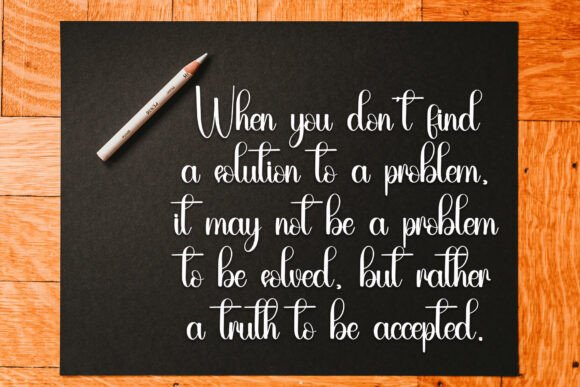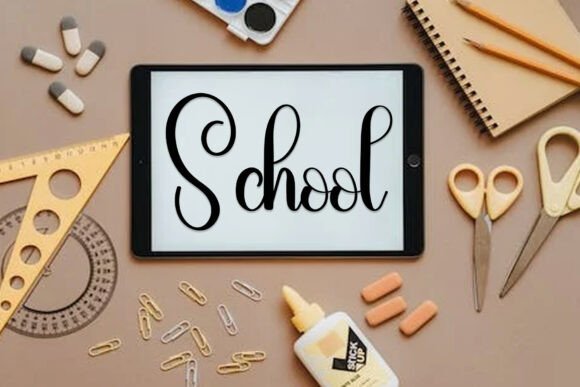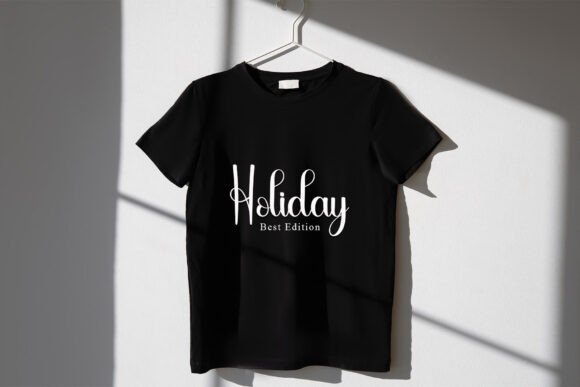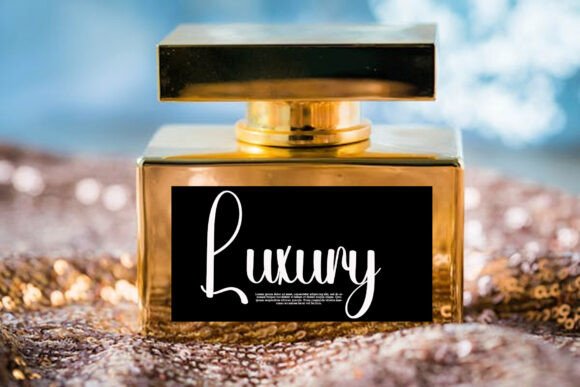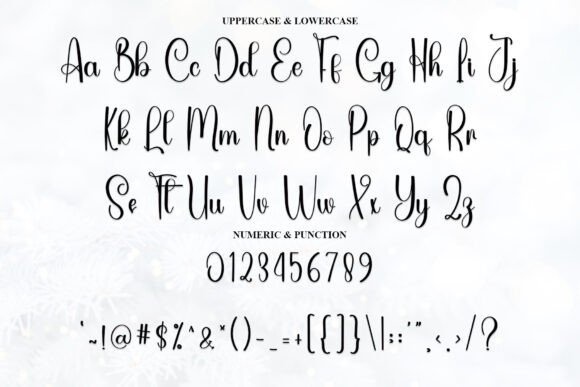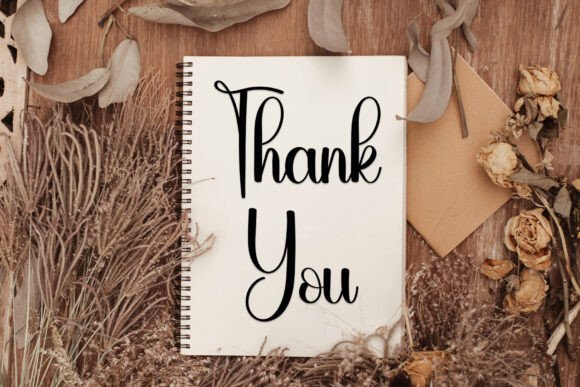
Introducing Christmas Vacation Font: Elevate Your Designs with Timeless Elegance
Are you looking for a font that exudes style, beauty, and elegance, perfect for adding a touch of sophistication to your projects? Look no further than the Christmas Vacation Font. Inspired by timeless classic calligraphy, this font brings a contemporary atmosphere and impeccable form to your designs. Whether you’re a designer, crafter, or DIY enthusiast, this font is sure to become your new go-to for creating stunning visual content.
What Makes Christmas Vacation Font So Special?
Christmas Vacation Font is a stylish and beautiful font that boasts a range of features that set it apart from other fonts. Here are just a few reasons why this font is a must-have for designers and crafters:
- Contemporary yet Classic: This font strikes the perfect balance between modern elegance and timeless sophistication. Its classic calligraphy inspiration ensures that your designs will never go out of style.
- Balanced and Varied: The Christmas Vacation Font is designed to enhance the beauty of your projects, with a balanced and varied design that ensures your text will always look stunning.
Perfect for a Range of Projects
Whether you’re working on a specific project or just looking for a versatile font to add to your collection, Christmas Vacation Font is the perfect choice. Here are just a few ideas for projects where this font would shine:
- Holiday Cards and Invitations: The Christmas Vacation Font is perfect for creating beautiful holiday cards and invitations, adding a touch of elegance and sophistication to your designs.
- Branding and Packaging: This font is ideal for use in branding and packaging projects, where a stylish and professional look is essential.
- Digital and Print Media: The Christmas Vacation Font would be a great addition to any digital or print media project, from social media graphics to brochures and flyers.
- Crafting and DIY Projects: If you’re a crafter or DIY enthusiast, this font would be perfect for use in a range of projects, from handmade cards to custom signs and decorations.
Why Choose Christmas Vacation Font?
With so many fonts available, why choose Christmas Vacation Font? Here are just a few reasons why this font stands out from the crowd:
- Unique and Creative: The Christmas Vacation Font offers a unique and creative way to add a touch of elegance to your designs.
- High-Quality Design: The Christmas Vacation Font is designed to the highest standards, ensuring that your designs will always look professional and polished.
If you’re looking for a font that combines style, beauty, and elegance with a contemporary atmosphere and impeccable form, look no further than the Christmas Vacation Font. With its timeless classic calligraphy inspiration, balanced and varied design, and PUA encoding, this font is perfect for a range of projects. Whether you’re a designer, crafter, or DIY enthusiast, this font is sure to become a valuable addition to your collection.